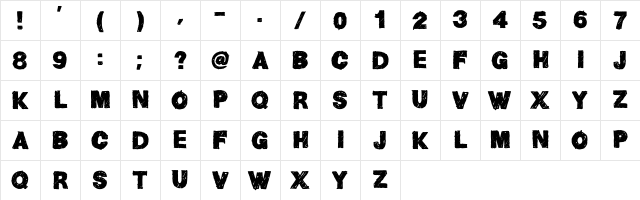
Helv Children Regular
Foundry: Matthias Guggisberg (Bern)
Designer: Matthias Guggisberg (Bern)
Design Context for Helv Children
Helv Children has an approachable, lighthearted character - its loose, expressive forms are well-suited to children's content, casual branding, and fun-first design.
Font Pairing: Pairs well with a rounded or humanist sans for body copy, maintaining the friendly tone without relying on Helv Children to carry extended reading.
Pro Tip: Use Helv Children at larger display sizes where its expressive character can land. Pair with a clean, simple sans for body copy to maintain readability.